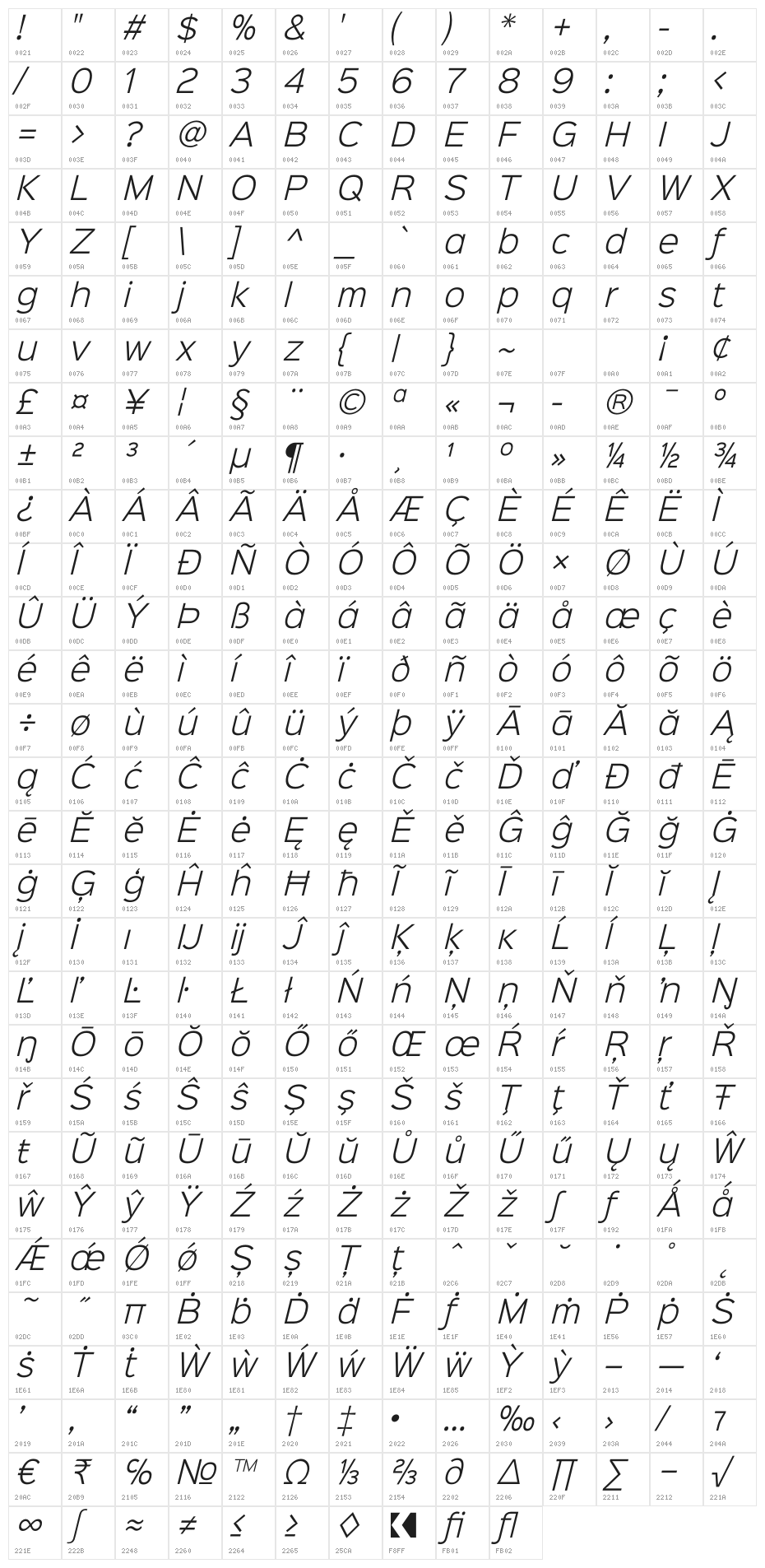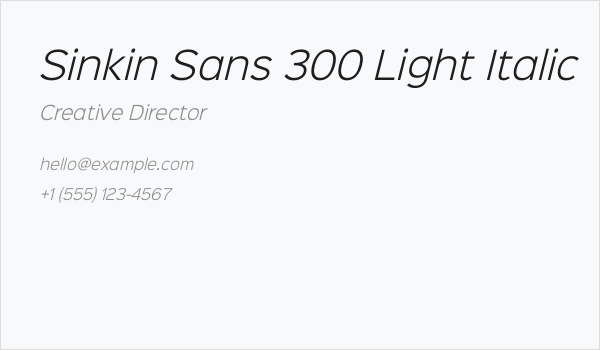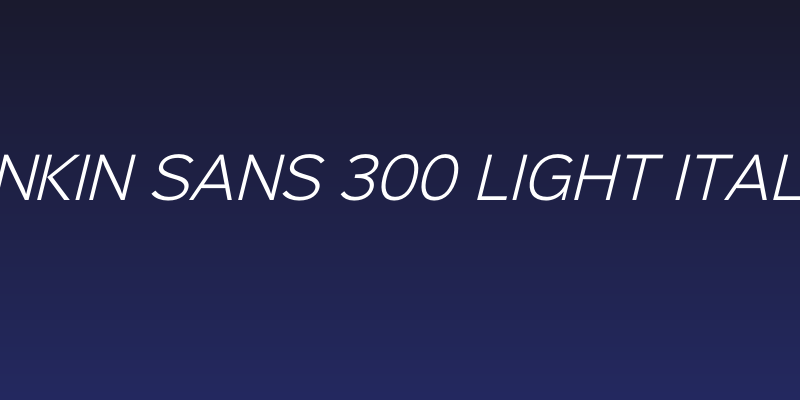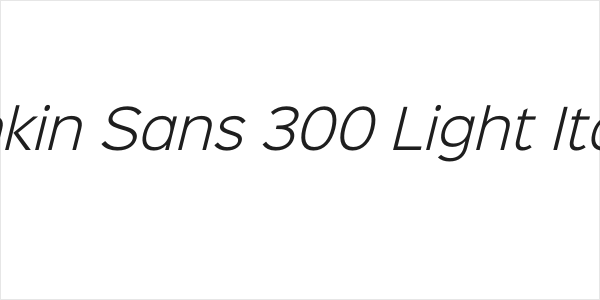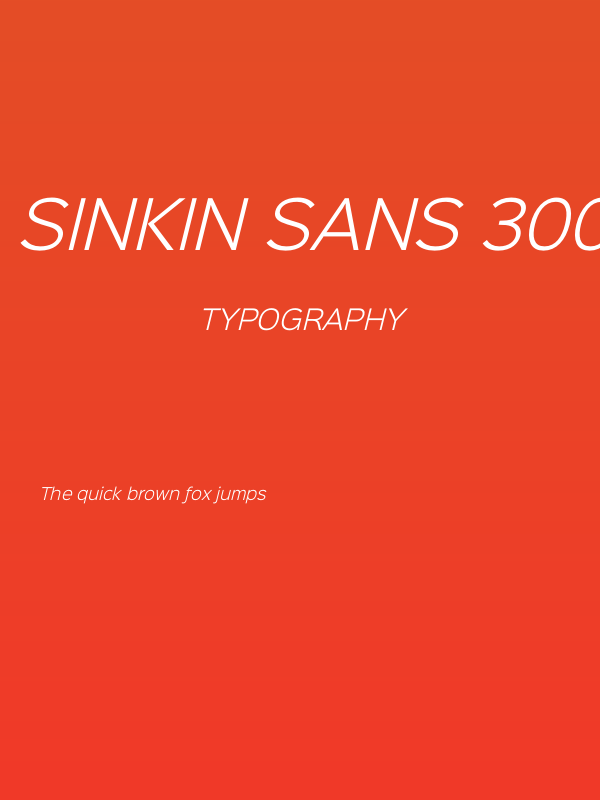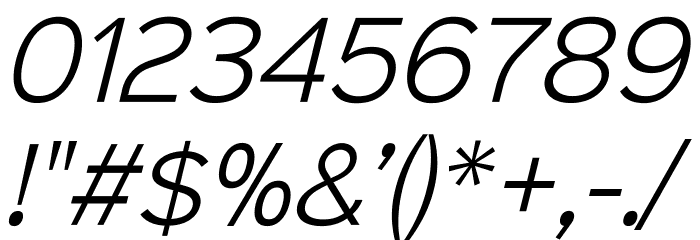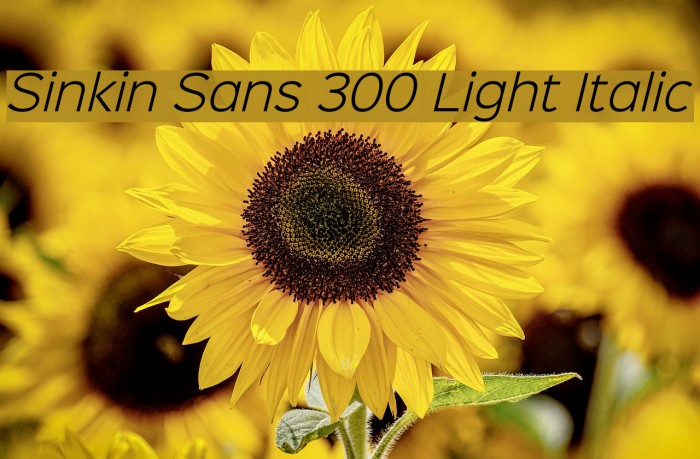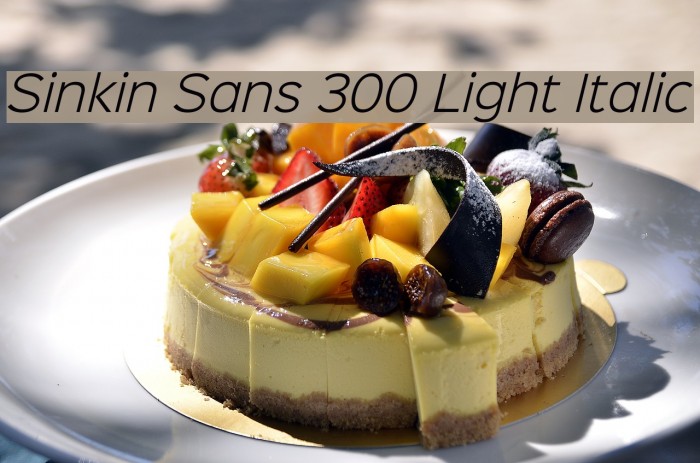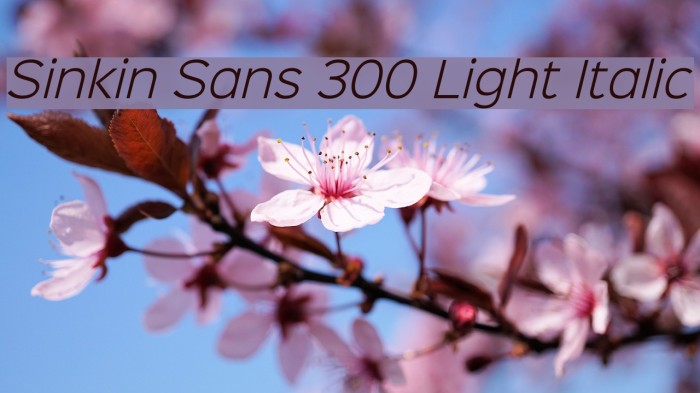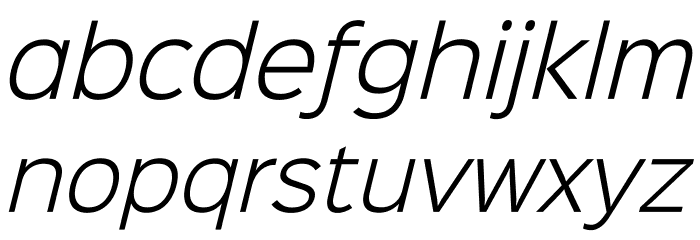
Sinkin Sans 300 Light Italic Font
Sinkin Sans 300 Light Italic Description
This font features a sleek and modern sans-serif design with a light weight and italic style. The characters are elegantly slanted, providing a sense of motion and fluidity. The letterforms are clean and minimalistic, with smooth curves and a consistent stroke width that enhances readability. The overall appearance is airy and sophisticated, making it suitable for contemporary design projects. The spacing between characters is normal, ensuring clarity and legibility across various sizes. This font's understated elegance makes it a versatile choice for a wide range of applications.
| Proposed Projects | Ideal for branding, editorial design, websites, and advertising materials where a modern and elegant look is desired. |